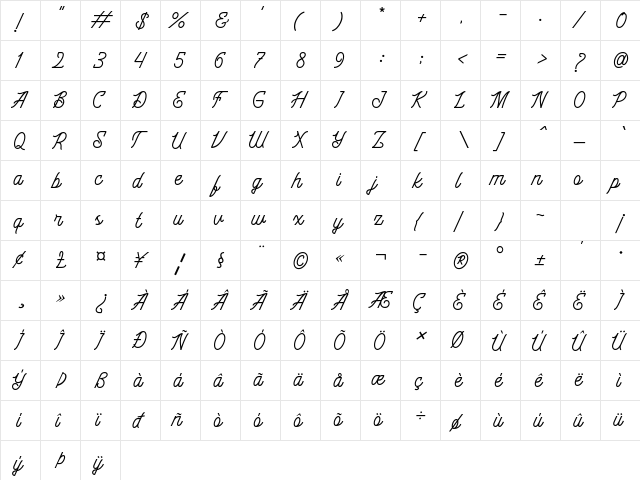
Black Roasters Regular
| Designer | Rivo Dwi Adriansyah |
Design Context for Black Roasters Typeface
Black Roasters takes a measured approach to typography — its balanced proportions and neutral character make it a reliable workhorse for both digital and print work.